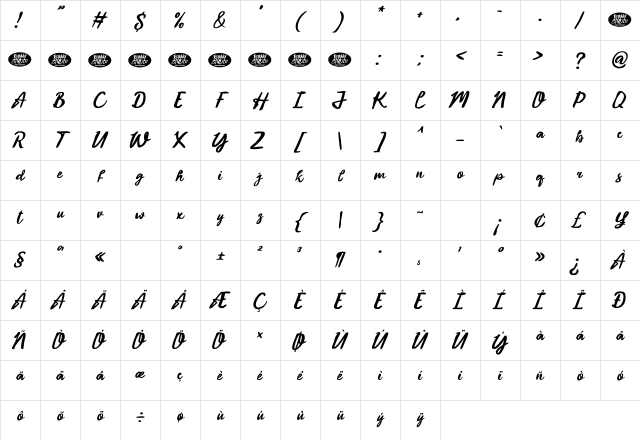
Vintage Light DEMO Regular
Foundry: Ronny Studio
Designer: Rony Rizki Jaya
Design Context for Vintage Light DEMO
Vintage Light DEMO wears its vintage influences proudly, with letterforms that recall mid-century signage, classic packaging, and nostalgia-driven design. Its slender proportions lend an understated elegance to any composition.
Font Pairing: Combine Vintage Light DEMO with a simple slab or neutral sans - period-accurate companions reinforce the vintage feel without competing for attention.
Pro Tip: Lean into Vintage Light DEMO's period character by pairing it with aged paper textures, muted colour palettes, and vintage illustration styles.